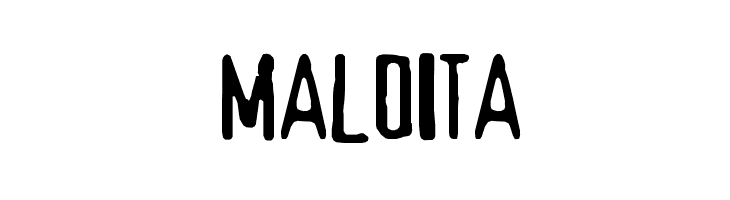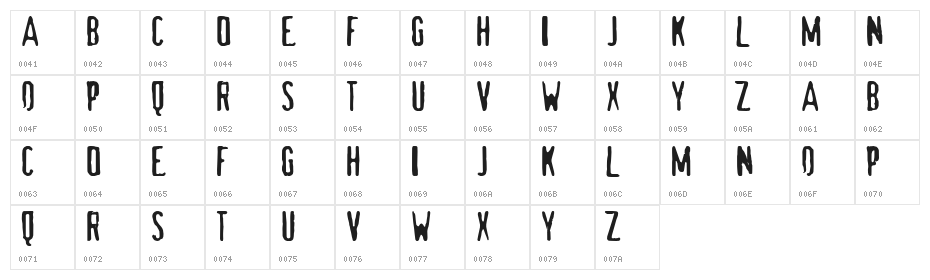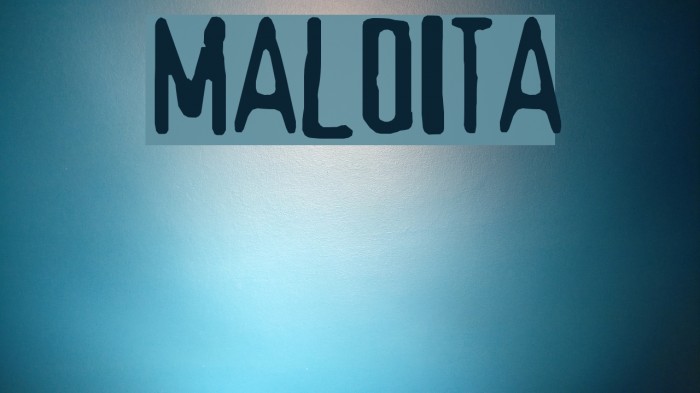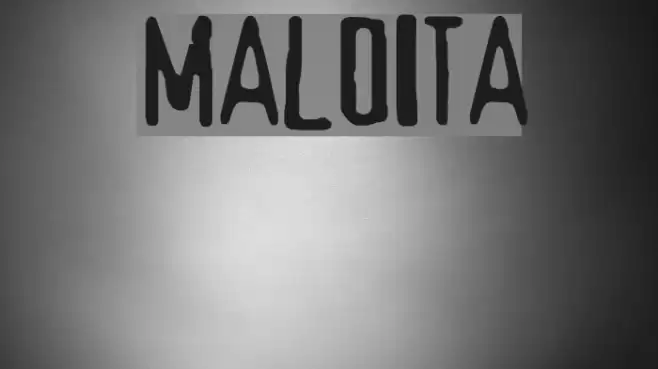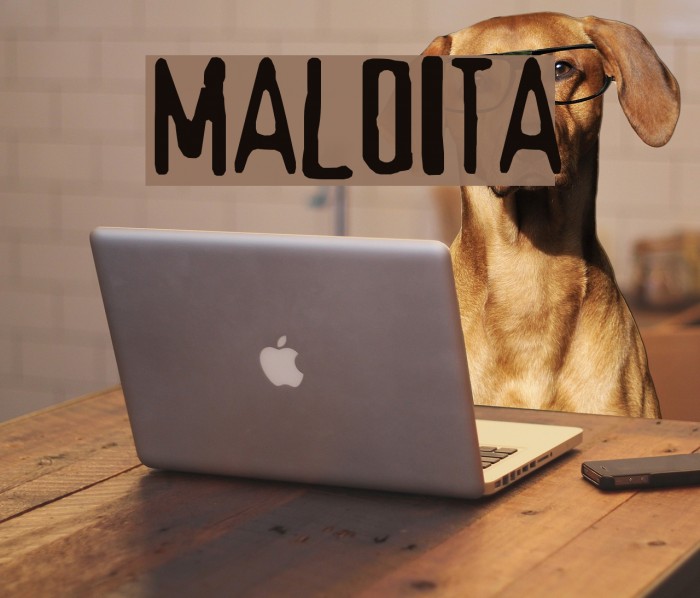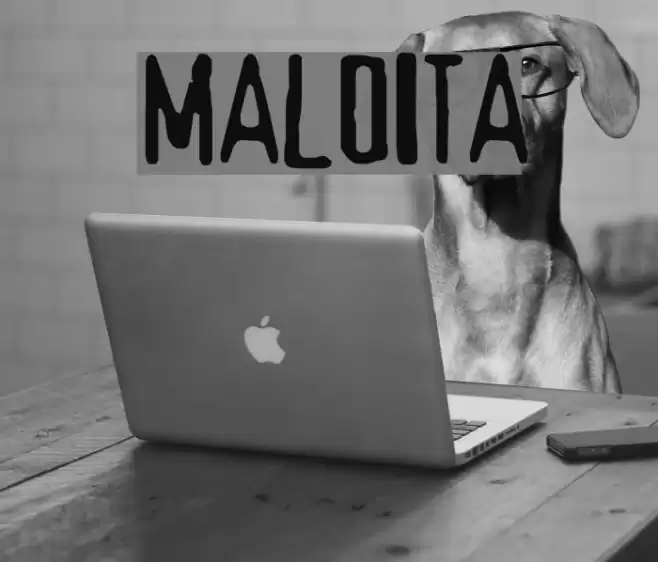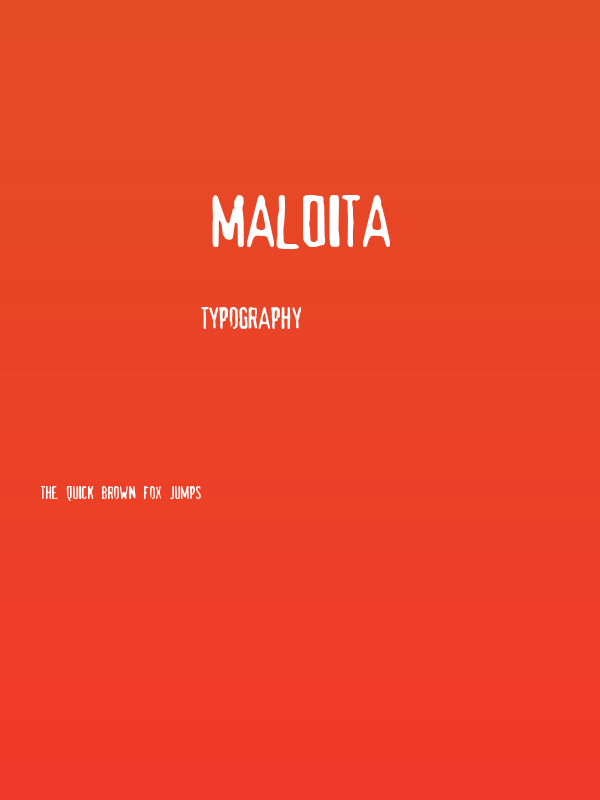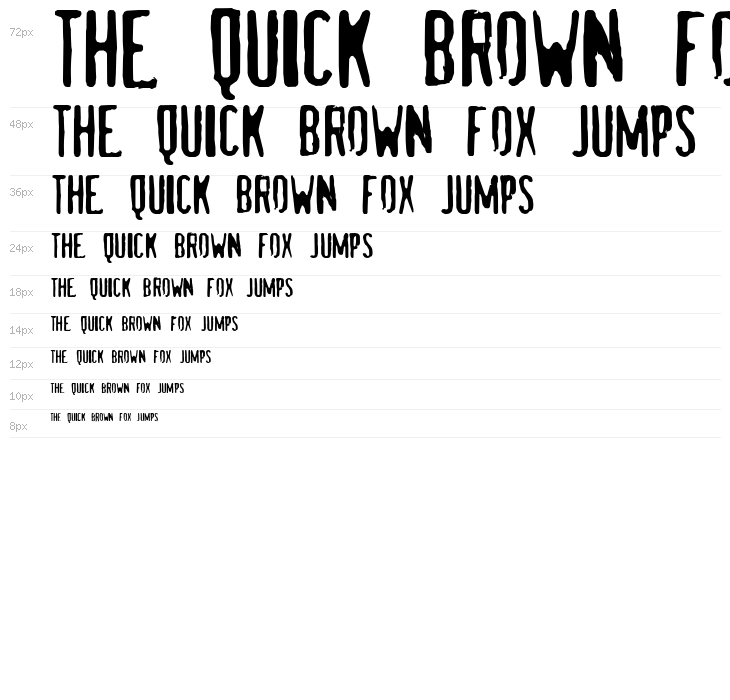
maldita Font
maldita Description
This font features a bold and rugged style, characterized by its distressed and uneven edges. The uppercase letters are tall and narrow, with a hand-drawn appearance that adds a sense of authenticity and rawness. The lack of lowercase letters and numbers suggests a focus on impactful, attention-grabbing text. The font's unique texture and irregularities give it a dynamic and energetic feel, making it suitable for projects that require a bold statement. Its distinctive style is reminiscent of graffiti or street art, adding an urban and edgy vibe to any design.
| Overall Style | Urban, Edgy, Raw |
| Proposed Projects | Ideal for posters, album covers, streetwear branding, and urban-themed designs. |